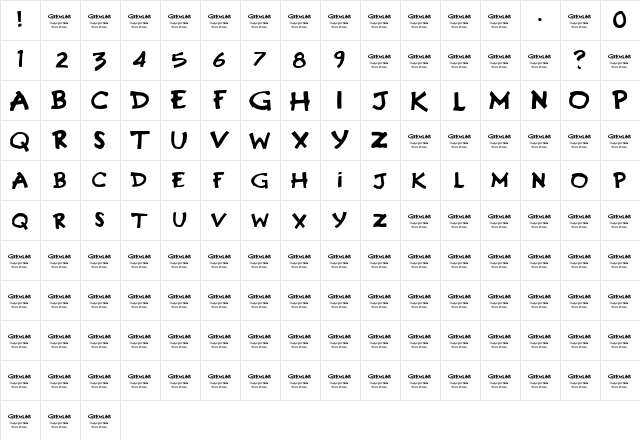
Gremlins Regular Font Preview
Gremlins Regular
Design Context for Gremlins Typeface
Gremlins is a composed and adaptable typeface that performs quietly and consistently across a wide range of design contexts.